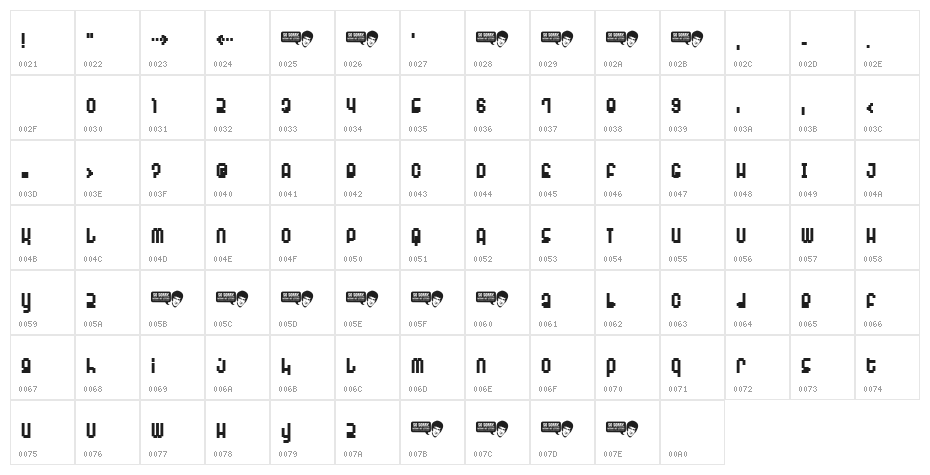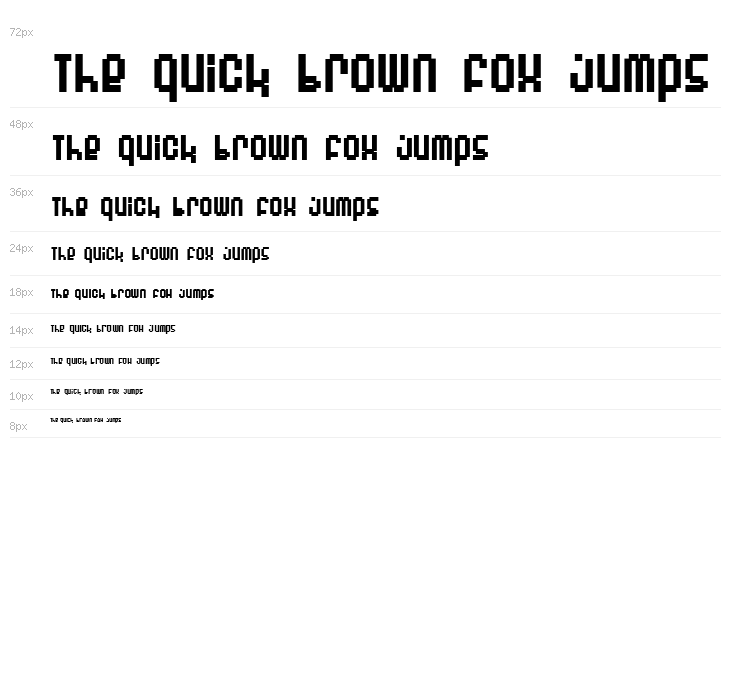
Monophonic Bold Font
Monophonic Bold Description
This font features a bold, pixelated style reminiscent of early digital or video game typography. Each character is constructed with a blocky, square design, giving it a distinctly retro and geometric appearance. The uniformity in stroke width across all characters contributes to a cohesive and consistent look. The uppercase and lowercase letters maintain a similar height, enhancing the monospaced feel of the font. Numbers and special characters follow the same design principles, ensuring visual harmony throughout. This font's nostalgic aesthetic makes it ideal for projects that aim to evoke a sense of vintage digital charm.
Overall StyleVintage
Use CaseLogos, Headlines, Digital Art
Proposed ProjectsIdeal for video game design, retro-themed posters, digital art projects, and any creative work that seeks to capture a nostalgic digital aesthetic.